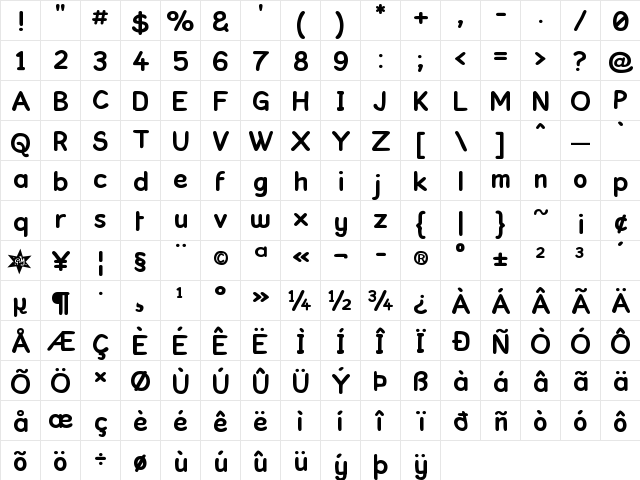
Kronika Regular Font Preview
Kronika Regular
Kronika Regular Font Details
| Designer | Graham Meade |
Design Context for Kronika Typeface
Kronika is a composed and adaptable typeface that performs quietly and consistently across a wide range of design contexts.